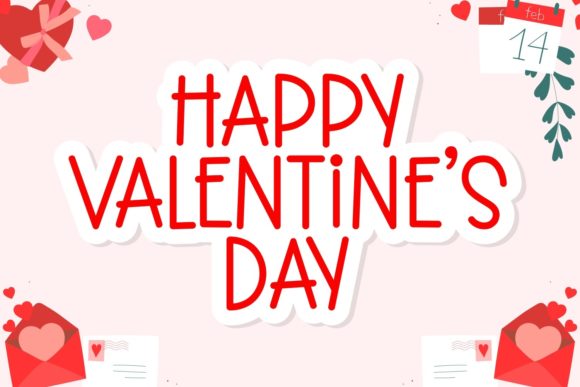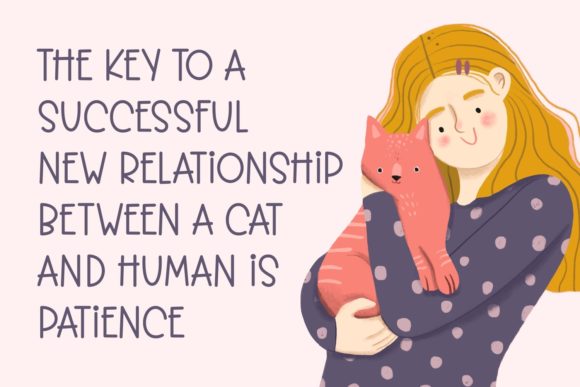
Arnold Story Font
db-ku.com - Script & Handwritten -- Arnold Story is a fun, simple and adaptable handwritten font. It will look stunning on any poster, flyer or print.